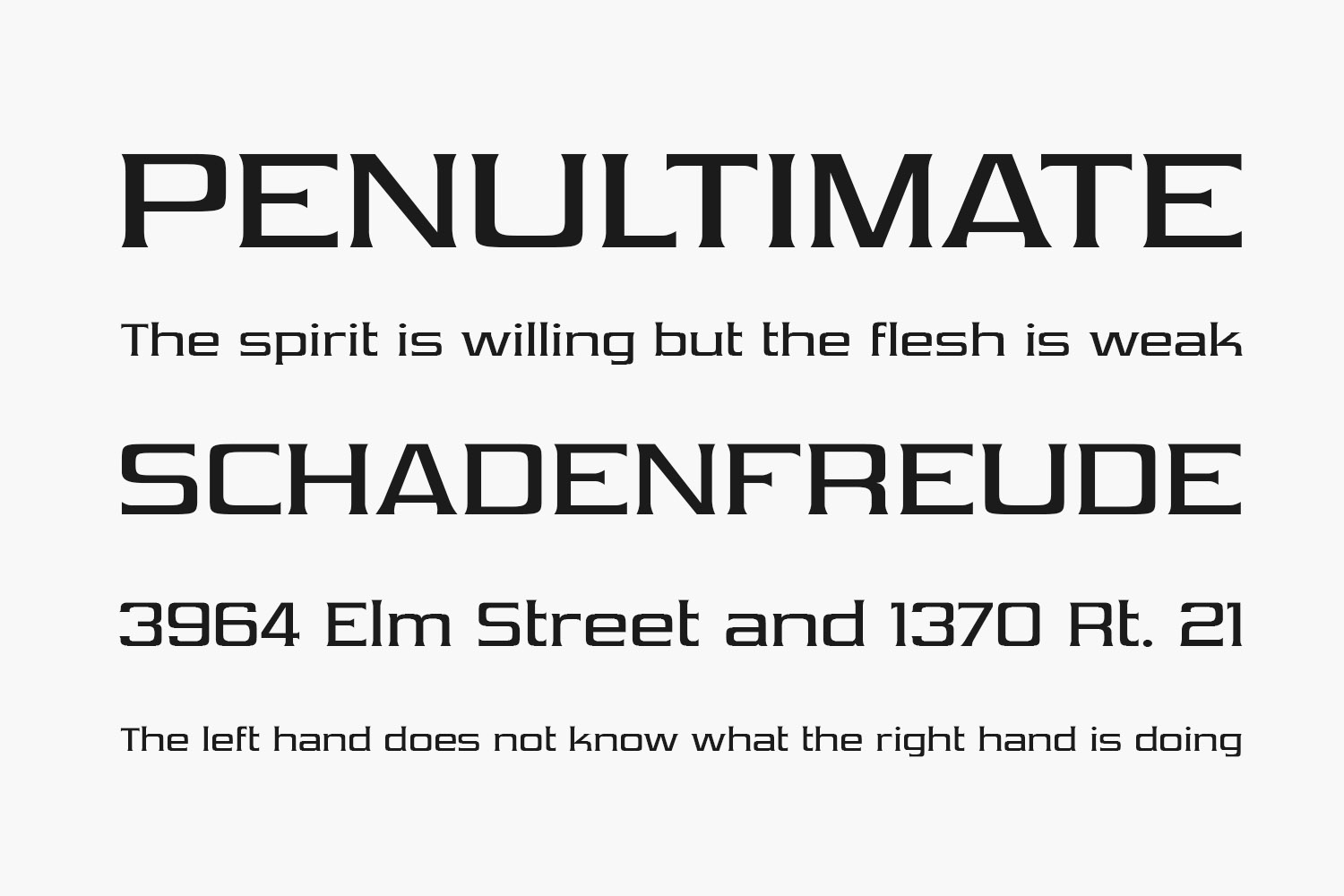
Vibrocentric Free Font Family is a sweet flare serif with appeal. These fonts include a license that allows free commercial use: sometimes referred to as a desktop license. This allows you to install the fonts on a computer and use them to create posters, web graphics, eBooks, game graphics, t-shirts, videos, signs, logos, and more. Vibrocentric Free Font Family was designed by Typodermic Fonts and is free for personal or commercial use.